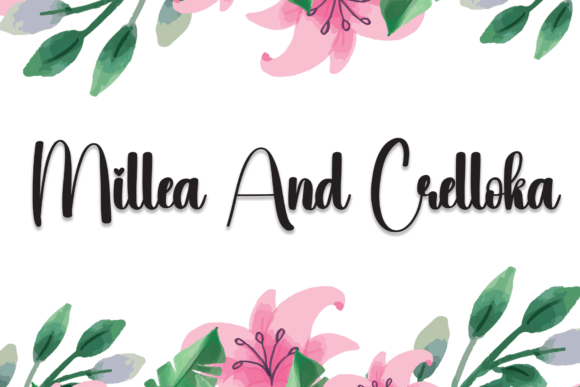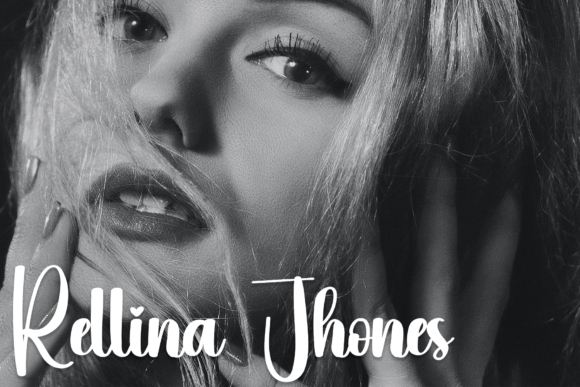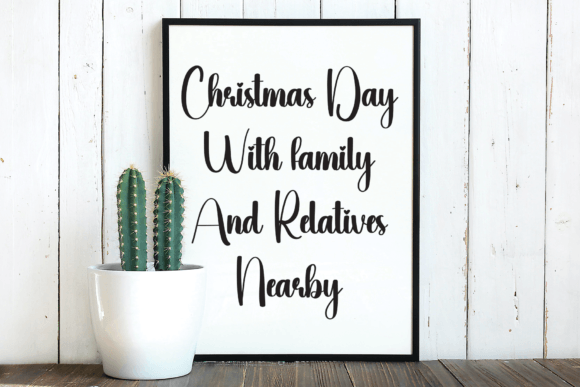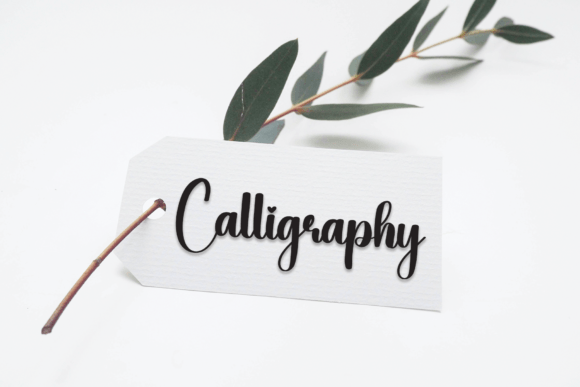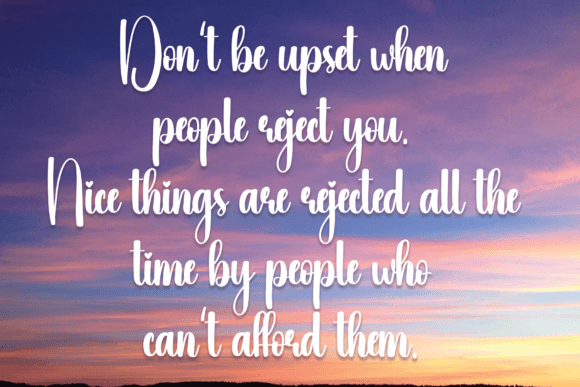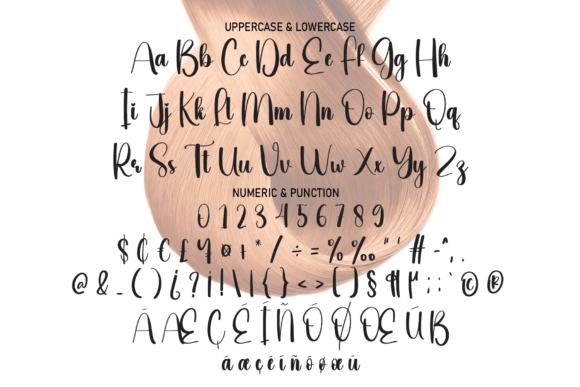
Celestial Font: Add a Touch of Romance to Your Designs
Are you looking for a font that can add a romantic feel to your next project? Look no further than Celestial, an enchanting handwritten font that is sure to captivate your audience. This versatile script font has a wide spectrum of applications, ranging from greeting cards to headlines, and is perfect for designers and crafters who want to add a touch of elegance to their work.
The Characteristics of Celestial Font
Celestial Font is a beautiful, handwritten script font that is characterized by its flowing lines, elegant curves, and whimsical feel. The font has a romantic and feminine touch, making it perfect for designs that require a personal and emotional connection with the audience. The letters are carefully crafted to create a sense of movement and fluidity, giving the font a dynamic and lively feel.
What Makes Celestial Font So Versatile?
Celestial Font is an incredibly versatile font that can be used in a wide range of applications. Here are just a few examples of how you can use this beautiful font:
- Greeting Cards: Add a personal touch to your greeting cards with Celestial Font. Whether it’s a birthday, anniversary, or wedding card, this font is sure to make your card stand out.
- Headlines: Use Celestial Font to create eye-catching headlines for your blog posts, articles, or social media posts. The font’s elegant curves and whimsical feel make it perfect for grabbing the attention of your audience.
- Branding: Celestial Font is perfect for branding projects that require a personal and emotional connection with the audience. Use it to create a logo, tagline, or packaging design that stands out.
- Invitations: Create beautiful invitations for weddings, parties, or other special events with Celestial Font. The font’s romantic feel makes it perfect for creating memorable and elegant invitations.
Why Choose Celestial Font?
There are many fonts available that can add a touch of elegance to your designs, but Celestial Font stands out from the rest. Here are just a few reasons why:
- Unique and Handcrafted: Celestial Font is a handcrafted font that is unique and distinctive. The font’s elegant curves and whimsical feel make it stand out from more traditional fonts.
- Elegant and Refined: Celestial Font has an elegant and refined feel that makes it perfect for designs that require a touch of sophistication.
- Easy to Read: Despite its elegant feel, Celestial Font is easy to read and understand. The font’s clear and flowing lines make it perfect for body text and headlines.
- Highly Versatile: Celestial Font is highly versatile and can be used in a wide range of applications, from greeting cards to headlines.
How to Use Celestial Font in Your Designs
Using Celestial Font in your designs is easy. Here are just a few tips to get you started:
- Pair it with a Simple Font: Pair Celestial Font with a simple font to create a beautiful contrast between the elegant script font and the clean, sans-serif font.
- Use it for Headlines: Use Celestial Font for headlines and titles to create a eye-catching and elegant look.
- Add a Personal Touch: Add a personal touch to your designs by using Celestial Font for body text or captions.
Celestial Font is a beautiful and enchanting handwritten font that is sure to add a romantic feel to your next project. With its elegant curves, whimsical feel, and highly versatile nature, Celestial Font is perfect for designers and crafters who want to create memorable and elegant designs. Whether you’re creating greeting cards, headlines, or branding projects, Celestial Font is sure to captivate your audience and leave a lasting impression.